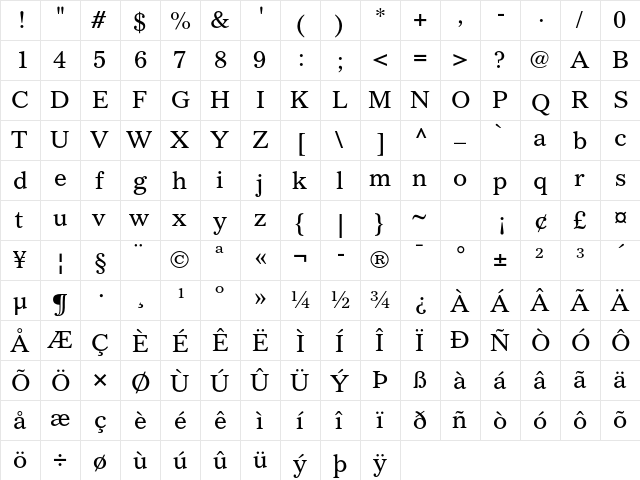
Gazette LT Std Roman
Design Context for Gazette LT Std Typeface
Gazette LT Std offers clean, dependable letterforms without strong stylistic allegiance, making it a practical choice for designers who need flexibility. The delicate stroke weight brings airiness and refinement to layouts.